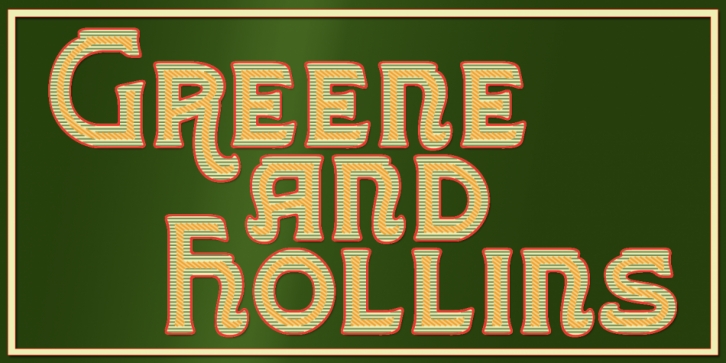
Greene and Hollins is a display sans font family. This typeface has seven styles and was published by Greater Albion Typefounders.
Greene and Hollins of Wolverhampton were a rather smart gentleman’s outfitter, much frequented by my late grandfather and altogether redolent (in memory and actuality) of a bygone age of retail service and respect.  I believe they’re out of business now, but we’re rather pleased to offer them this very small if rather random memorial.  Greene and Hollins is a set of seven display typefaces, with uniform metrics, which can be overlaid to create multi-coloured ‘engraved’ effects.  Also ideal to recreate traditional sign-writing, garment labels, signage and anything else where a period flare is required.
· Greene and Hollins No1
· Greene and Hollins No2
· Greene and Hollins No3
· Greene and Hollins No4
· Greene and Hollins No5
· Greene and Hollins No6
· Greene and Hollins No7